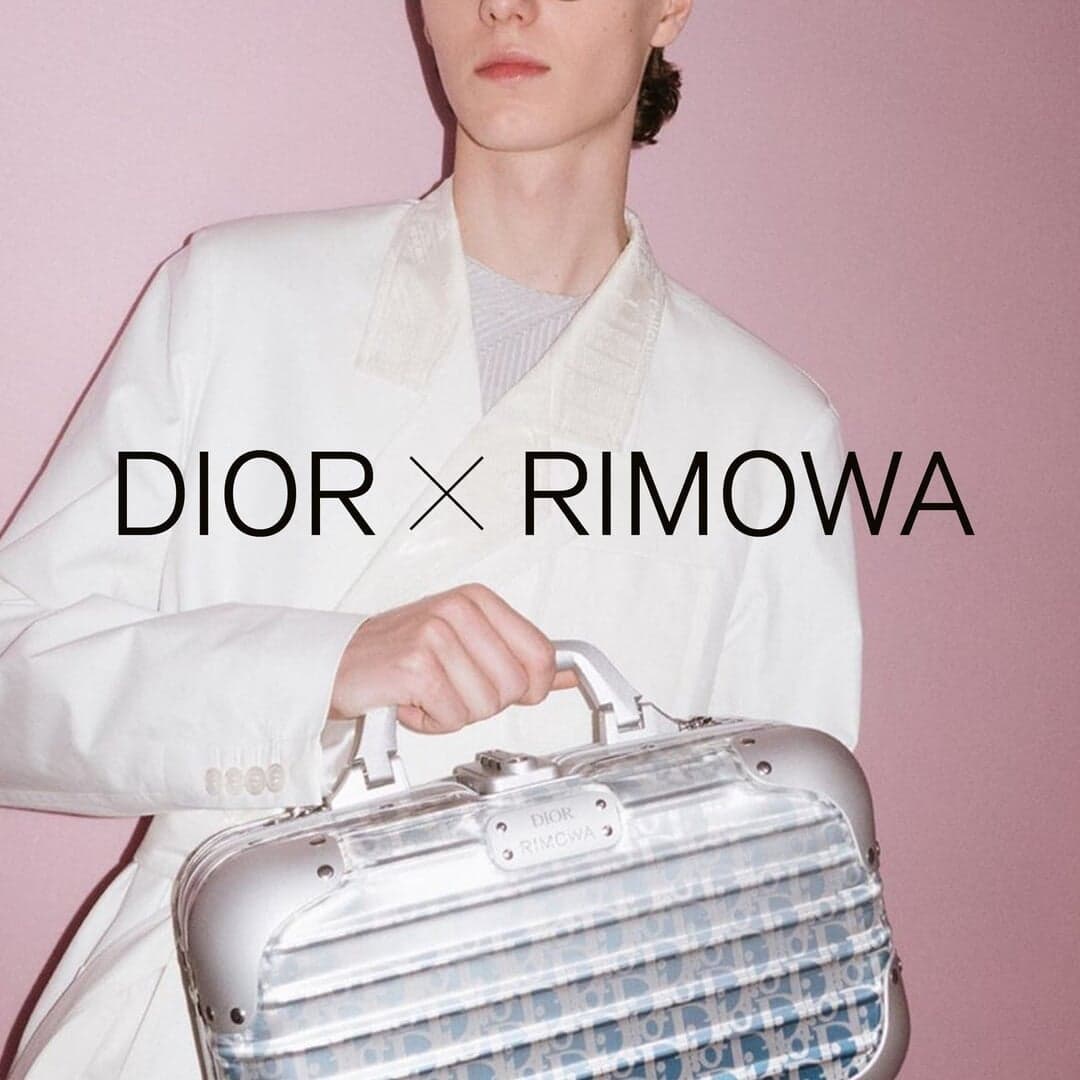
Dinamo collaborated with Commission Studio to design a custom typeface for Rimowa’s new visual identity. Inspired by early German grotesques and the brand’s iconic aluminium suitcases, the typeface merges industrial precision with humanistic warmth to reflect Rimowa’s heritage and craftsmanship.